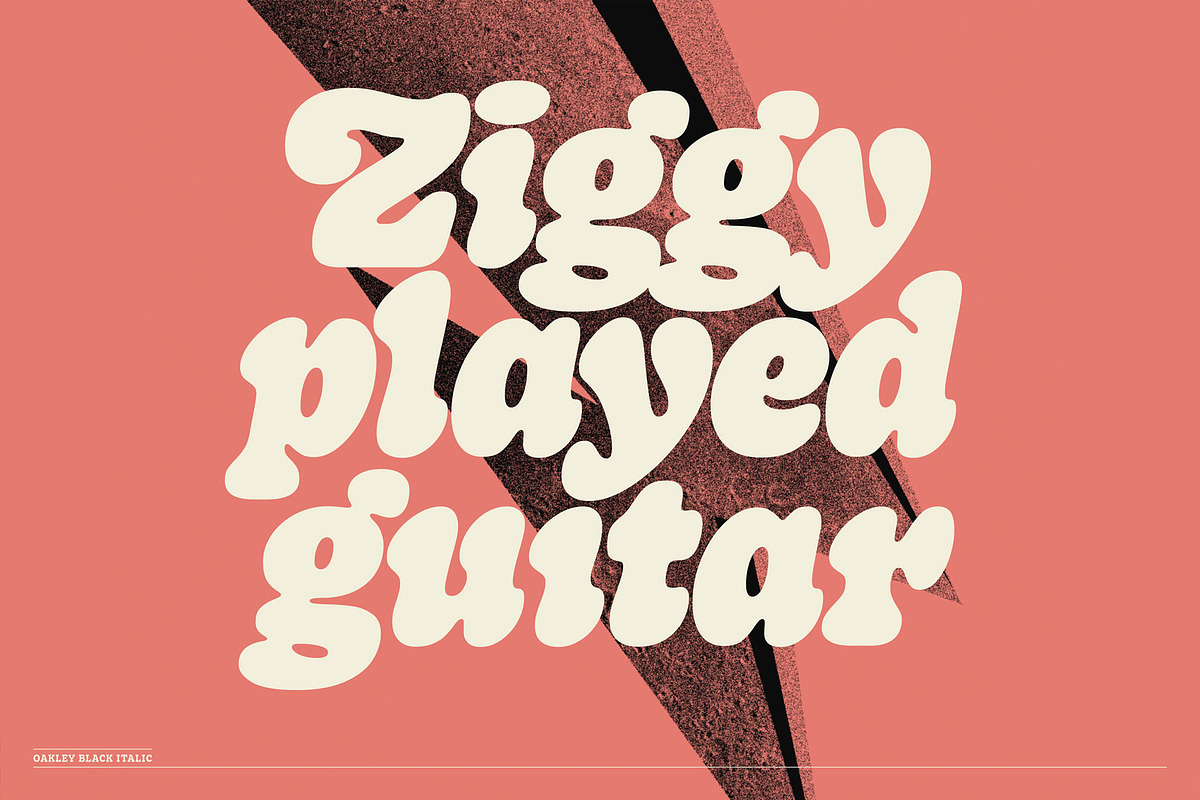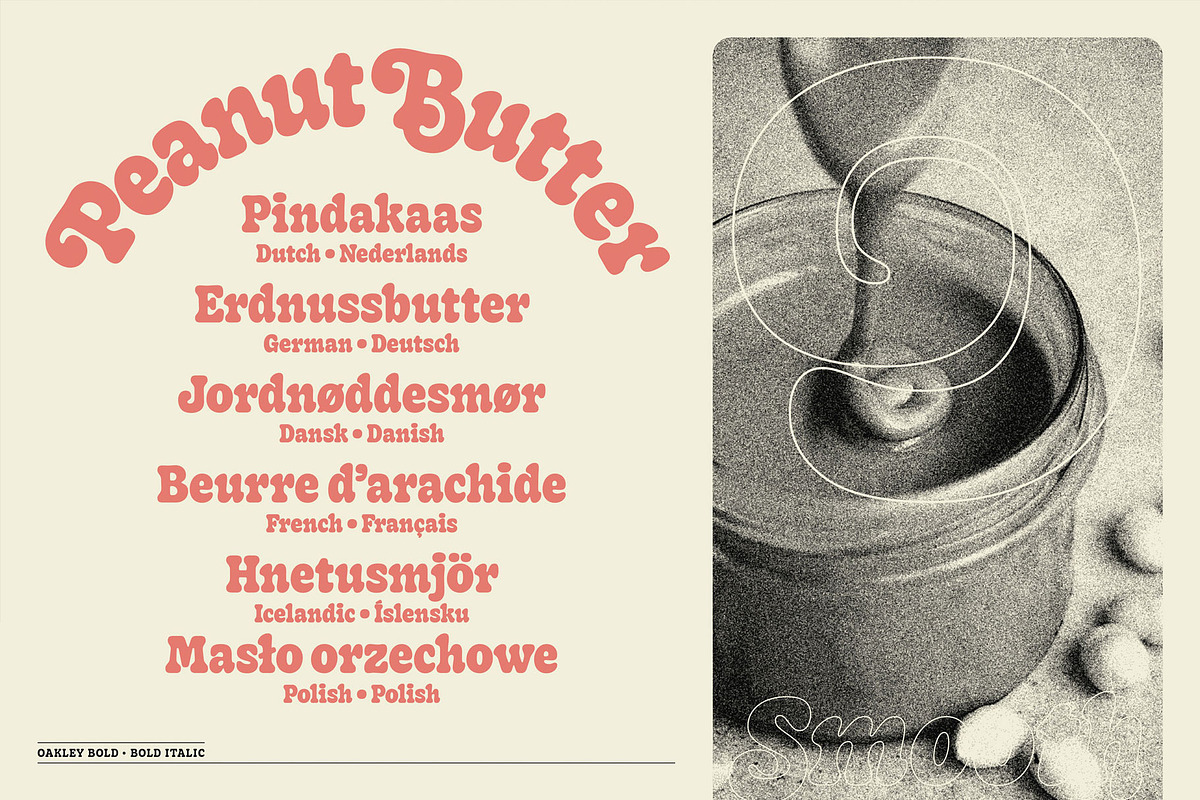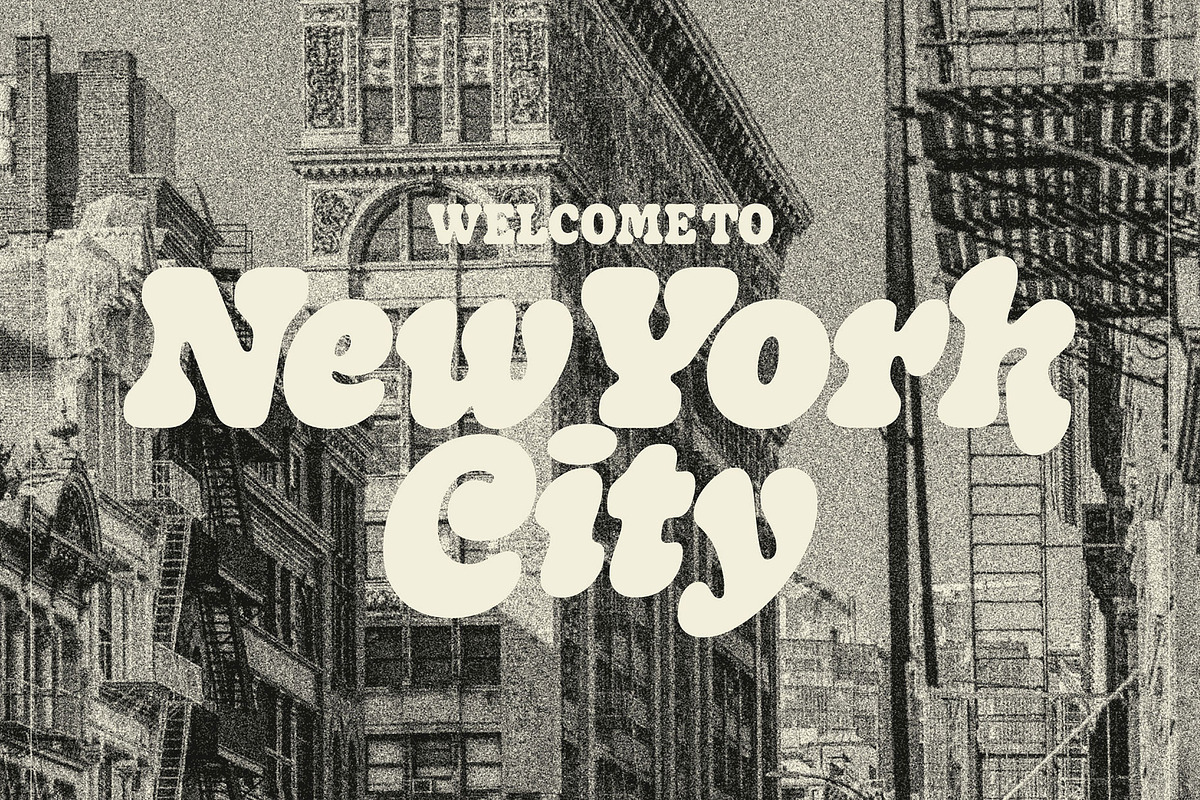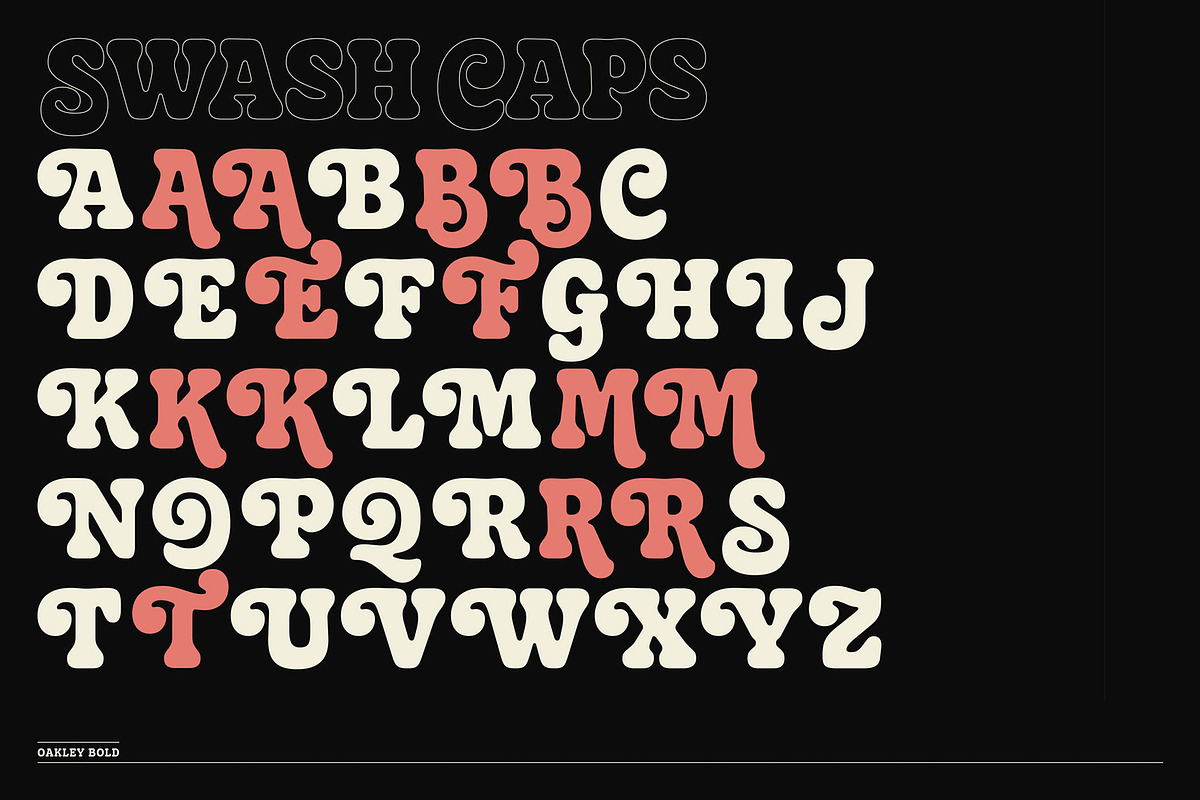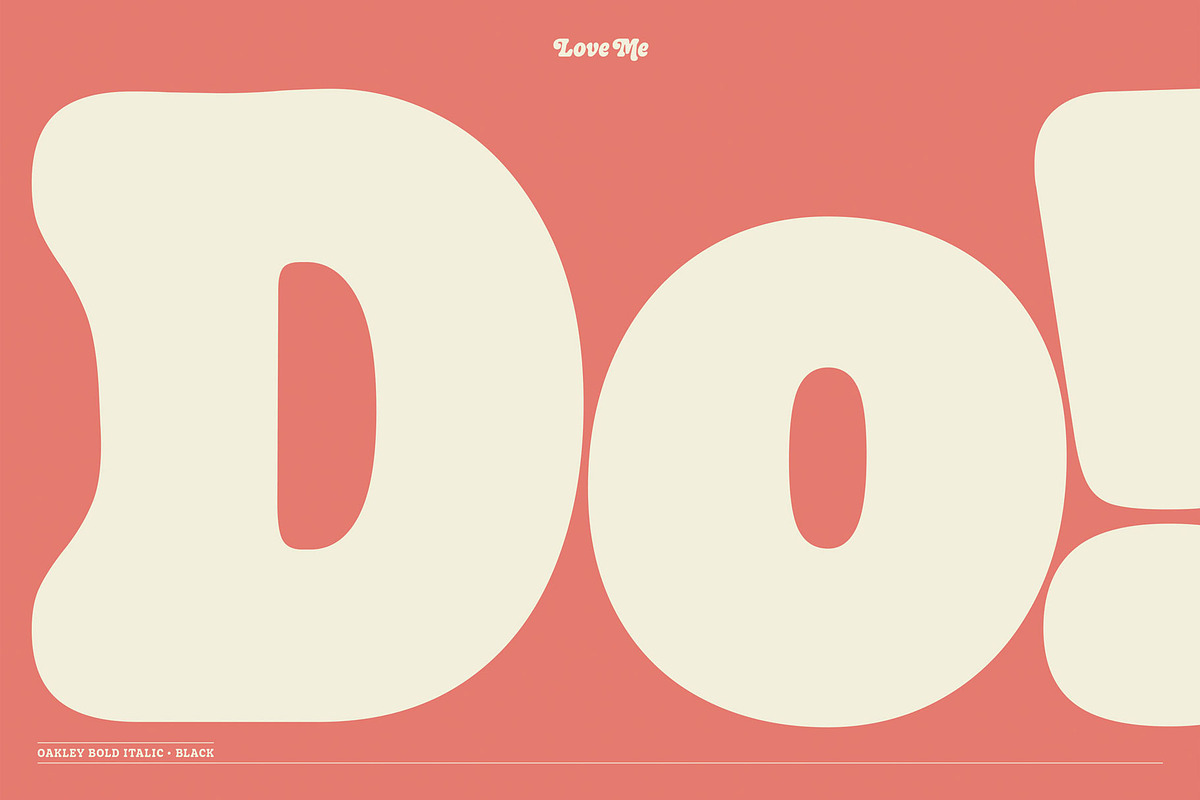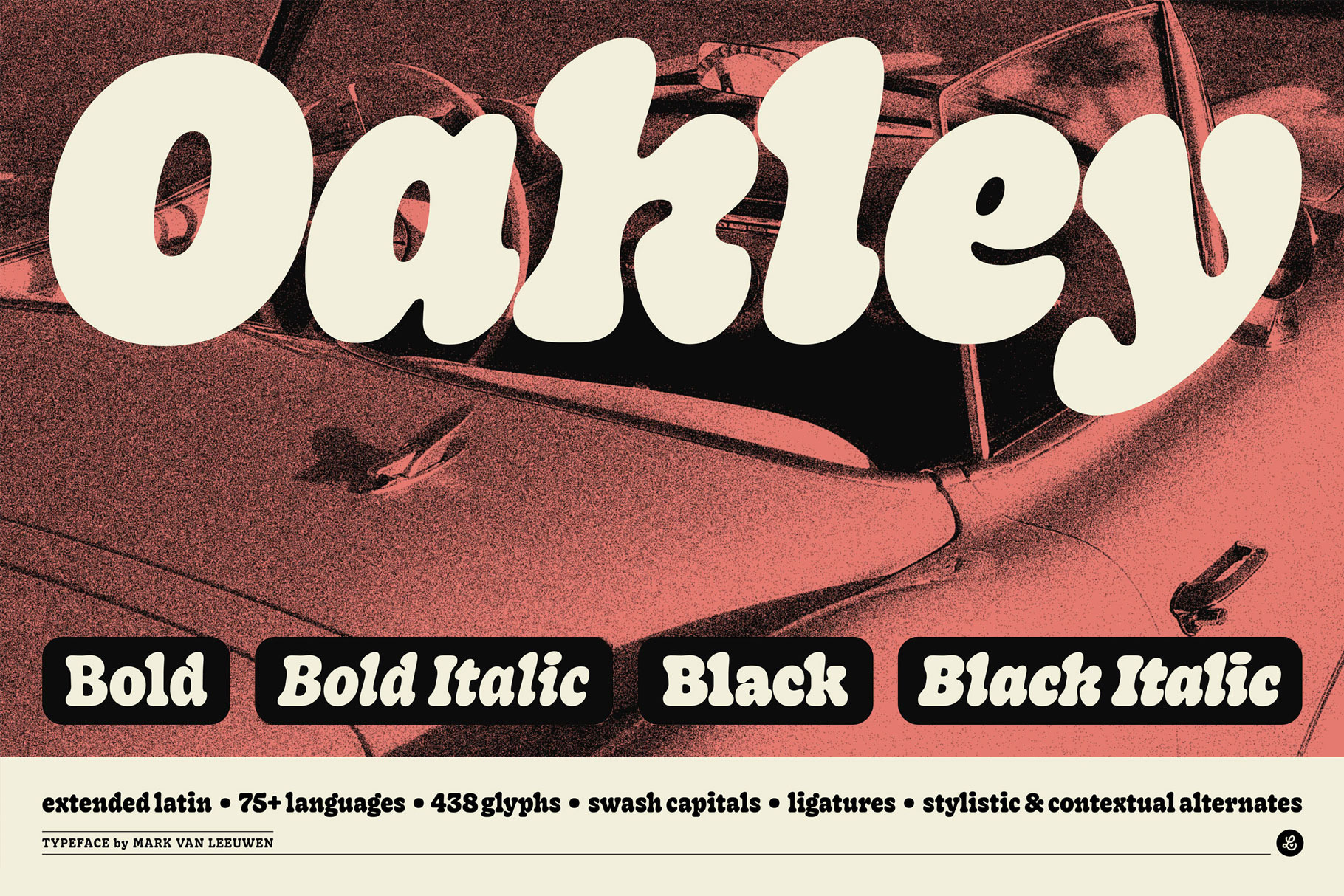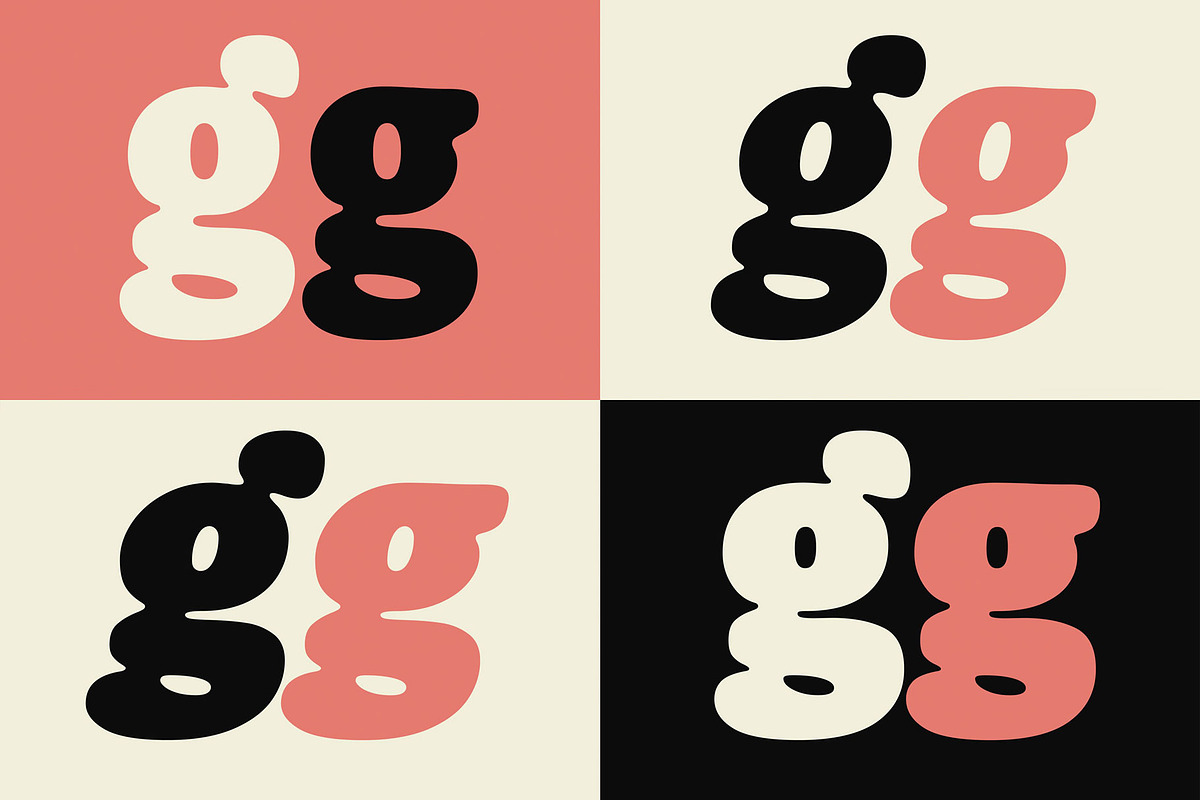
Oakley Typeface
Oakley is an homage to the expressive, soft and rounded old-style serif typefaces from the sixties and seventies. Its gentle and juicy serifs give the typeface the right amount of warmth and nostalgia. While hinting at the classic Cooper-like style, the reinterpretation features several unconventional letterforms which make both the roman and italic styles remarkably dynamic.
Typeface Features:
- 4 Font Weights — Bold, Bold Italic, Black, Black Italic (TTF)
- Extended Latin Character Set (supports 75+ languages)
- Standard + Discretionary Ligatures
- Swash Capitals
- Contextual & Stylistic Alternates
- Oldstyle Figures
- Punctuation & Symbols
- 438 glyphs